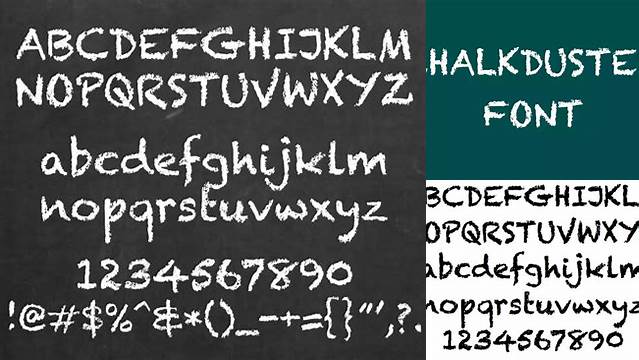
Chalkduster Font: Commercial Use Guide
Hey everyone! Let's dive into the world of fonts, specifically, the Chalkduster font. A super popular choice for its cool, handwritten vibe. The big question? Is Chalkduster font free for commercial use? We're going to break it down, so you know exactly what you're getting into if you're thinking of using this font for your business, projects, or anything that involves making some money. We'll cover licensing, where to find it, and how to stay on the right side of the law while enjoying this awesome font.
Chalkduster Font Alternatives for Commercial Projects
So, what if you find out that the commercial use of Chalkduster isn't the best fit for your needs? Or perhaps the licensing terms don't align with your budget or project scope? No worries! There are tons of fantastic alternatives out there that can capture a similar handwritten aesthetic but come with more flexible commercial licenses. Here's a rundown of some options to consider. First off, look into fonts with the SIL Open Font License (OFL). These are often completely free for commercial use, so you won't have to worry about any added costs. You can find plenty of fonts with this license on Google Fonts and other open-source font repositories. Some great examples include Caveat and Permanent Marker – both offer a casual, handwriting feel. Consider also premium font marketplaces like Creative Market, Envato Elements, or MyFonts. These platforms host a vast collection of fonts, often created by independent designers, with various licensing options. Many of these platforms allow for commercial use with a single purchase. You can usually filter your search to narrow down fonts based on licensing type. For example, many fonts on Creative Market are available with a commercial license with a one-time fee. Be sure to always read the license details before you buy or download. Always make sure to verify the font’s usage, especially if you’re working with a client. Next, explore fonts that are included with your design software. Programs like Adobe Creative Cloud and Affinity Designer often include a library of fonts that are ready for commercial use. These can be a convenient option since they're already part of your toolset. If you're still stuck on the chalky handwriting style, then consider fonts like KG Sorry Not Sorry or Amatic SC. Also, try looking for fonts that offer a free commercial trial or a limited-use license. These are often offered by designers to help you test the font before you commit to a full commercial license. This lets you preview how the font will look in your project before you pay. The best strategy is to find fonts that are similar in style to Chalkduster. Don't hesitate to reach out to designers directly, too. If you find a font you love but are unsure about the licensing, you can always contact the designer or font foundry and ask about their commercial use terms. They’re usually more than happy to help clarify the rules. Having a variety of options will help you to find the perfect font for any commercial project.
Chalkduster Font and Logos: Commercial Use Guidelines
So, you’re thinking about using Chalkduster for your logo? Cool! But let's make sure you're playing by the rules. Many designers choose Chalkduster to create a brand image. It’s an attractive font that can add character to your brand. First of all, always double-check the font license. Is it okay to use Chalkduster in a logo? Some licenses allow this; others don't. Then, if the license allows it, find out if there are any restrictions. For instance, you might be able to use the font for a logo but not for other commercial purposes, like websites or packaging. Then, what about the ownership of the logo? Do you own it? If you hire a designer to create a logo using Chalkduster, make sure to clarify who owns the commercial license for the font. It's usually your responsibility. Make sure everything is in writing. Don’t assume anything! The best practice is to get a written agreement that states exactly what is allowed. If you are unsure of these things, then consult with a lawyer. You can avoid many problems by being informed. Also, if the font license says you can use Chalkduster in your logo, great! But that's not always the end of the story. Make sure the license covers all the uses you have in mind for your logo. Will it be on business cards, websites, social media, or even merchandise? Ensure the license covers all these uses. Keep a copy of your license. Keep the proof of purchase and the license agreement. This is proof that you have the right to use Chalkduster in your logo. When used correctly, Chalkduster can be a great asset to your branding. When used correctly, you can avoid many legal issues.
Chalkduster Font for Websites: License Compliance Tips
Using Chalkduster on your website can be a great way to add a personal touch. However, make sure you’re following the licensing rules. Start with the licensing terms. Does your license cover web use? Some fonts have specific web licenses that allow for embedding the font on a website. Web licenses often come with limitations on how many page views your site can have. If your website has high traffic, then you’ll need to get a license that covers high traffic. Then, how are you implementing the font? Are you using it with CSS @font-face? Or through a third-party service like Google Fonts? Make sure the license aligns with your implementation method. What about font file formats? Do you have the appropriate font files (like WOFF, WOFF2, etc.)? If you're not sure, then check with your license agreement. Using Chalkduster for the design of your website is a great way to capture attention. Make sure that you adhere to the license and that the website has the correct license. You want your website to be easy to read. If you’re going to be embedding it on your website, there are several ways to do it. Using @font-face is the easiest way. You can also use the fonts on Google Fonts, which are often free for commercial use. Always verify the license for commercial purposes. Then, keep records. Keep a copy of your license and proof of purchase. This is important in case of any issues. Make sure you comply with all the rules and regulations. If there are problems, you will have all the paperwork you need. By following these tips, you can use Chalkduster on your website while staying on the right side of the law.
Where to Find Legal Advice on Chalkduster Font Usage
Need legal advice on using Chalkduster font? Where do you go? Your first step is to consult with an intellectual property lawyer. They specialize in copyright and licensing law and can give you tailored advice. You can also search for lawyers! Go online and search for lawyers specializing in intellectual property. Then, you can contact the font provider. They can provide clarity on their license terms. If you are unsure, then join online forums. You can find forums focused on graphic design and licensing. You can also consult with your business lawyer! They may not be familiar with the specifics of font licensing. They can look at the legal issues. Then, do your research. Before consulting with a lawyer, research the licensing issues. Make sure you have a basic understanding. Then, prepare questions. Have clear questions to guide the conversation. By using these steps, you will get legal advice.